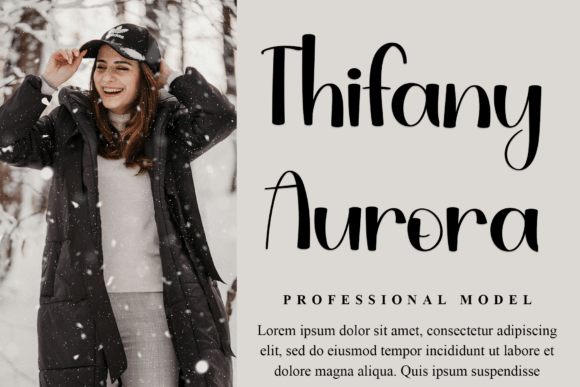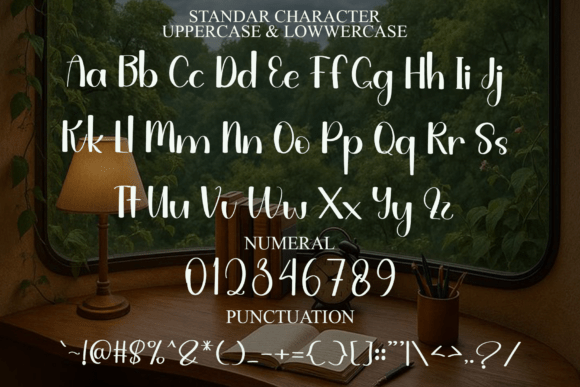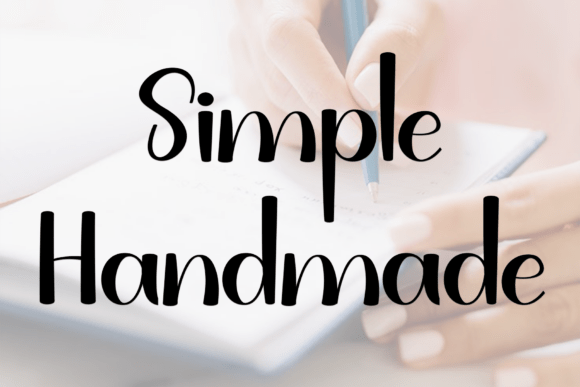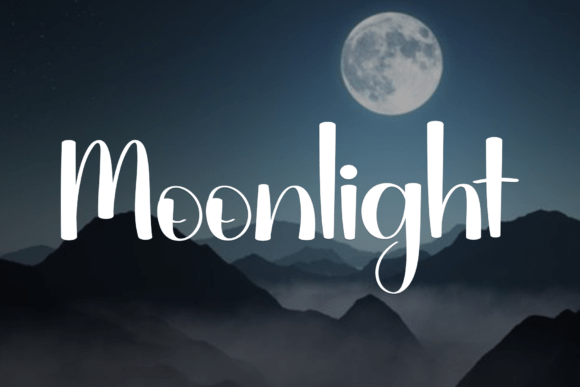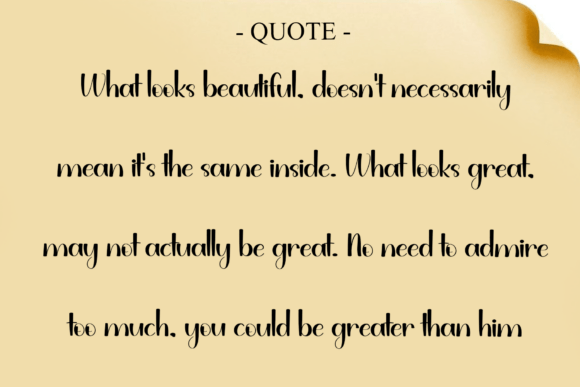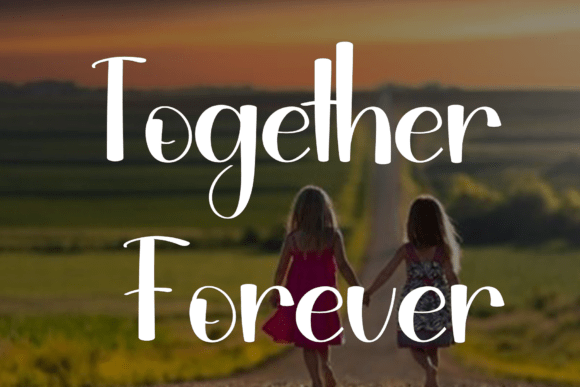
Introducing Avocado Font: The Festive and Merry Typeface for Holiday Designs
Are you looking for a font that captures the spirit of the holiday season? Do you want to add a touch of enchantment to your designs? Look no further than Avocado Font, a festive and merry typeface that’s perfect for greeting cards, gift tags, and holiday-themed projects.
The Magic of Avocado Font
Avocado Font is a decorative typeface that’s designed to bring a cheerful and nostalgic ambiance to your words. With its whimsical flair and decorative elements, this font is sure to make your designs stand out. Whether you’re creating holiday cards, gift tags, or festive banners, Avocado Font is the perfect choice.
One of the unique features of Avocado Font is its PUA (Private Use Area) encoding. This means that you can access all of the amazing glyphs and ligatures with ease, making it simple to create beautiful and intricate designs. With Avocado Font, you can let your typography shine with the magic of this beautiful font.
Avocado Font is perfect for designers and crafters who want to add a touch of holiday cheer to their projects. Whether you’re creating digital designs or handmade crafts, this font is sure to inspire your creativity. With its festive and merry vibe, Avocado Font is ideal for a wide range of projects, including:
- Gift tags and gift wrapping
- Holiday-themed banners and signs
- Digital papers and printable art
Key Features of Avocado Font
So, what makes Avocado Font so special? Here are some of its key features:
- PUA encoded: Easy access to all glyphs and ligatures
- Decorative elements: Whimsical flair and decorative elements add a touch of enchantment to your designs
- Festive and merry vibe: Perfect for holiday-themed projects and designs
- High-quality design: Carefully crafted to ensure a beautiful and professional look
Tips for Using Avocado Font
Here are some tips for using Avocado Font in your designs:
- Experiment with different sizes and colors: Find the perfect combination to match your design style
- Use it with other festive fonts: Create a unique and eye-catching look by combining Avocado Font with other holiday fonts
- Add decorative elements: Use the glyphs and ligatures to add extra flair to your designs
- Keep it simple: Don’t be afraid to use Avocado Font on its own – it’s perfect for simple and elegant designs
Avocado Font is a beautiful and festive typeface that’s perfect for holiday designs. With its decorative elements, whimsical flair, and PUA encoding, this font is sure to bring a touch of enchantment to your words. Whether you’re a designer or crafter, Avocado Font is a must-have for any holiday project. So why wait? Get creative with Avocado Font today and make your designs shine!